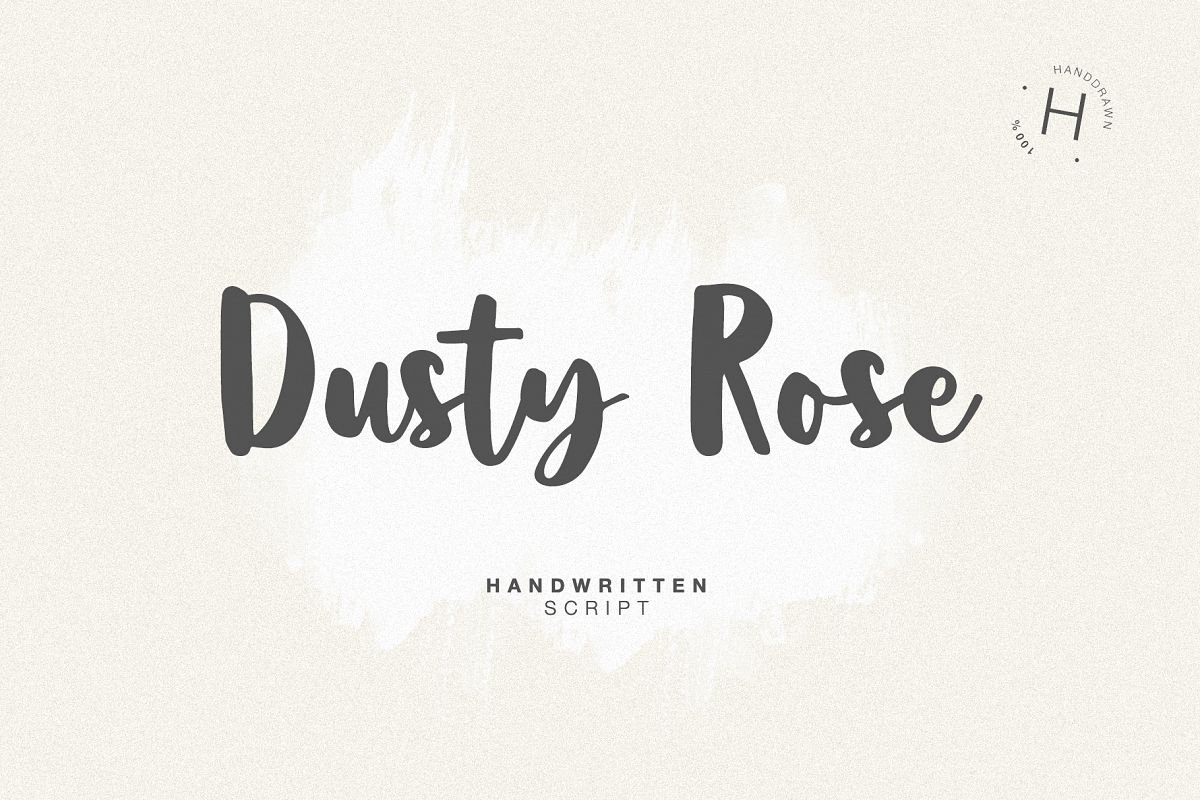
DUSTY ROSE handwritten font
The font is easy to read and looks like a hand-made inscription. Therefore, Dusty Rose is great for decorating menus, postcards, cards or signs. The font has correct kerning and letter spacing. The font is prepared for serious work and for ordinary home use
• Support ALL European Languages